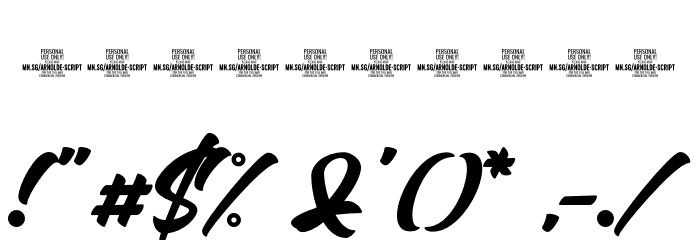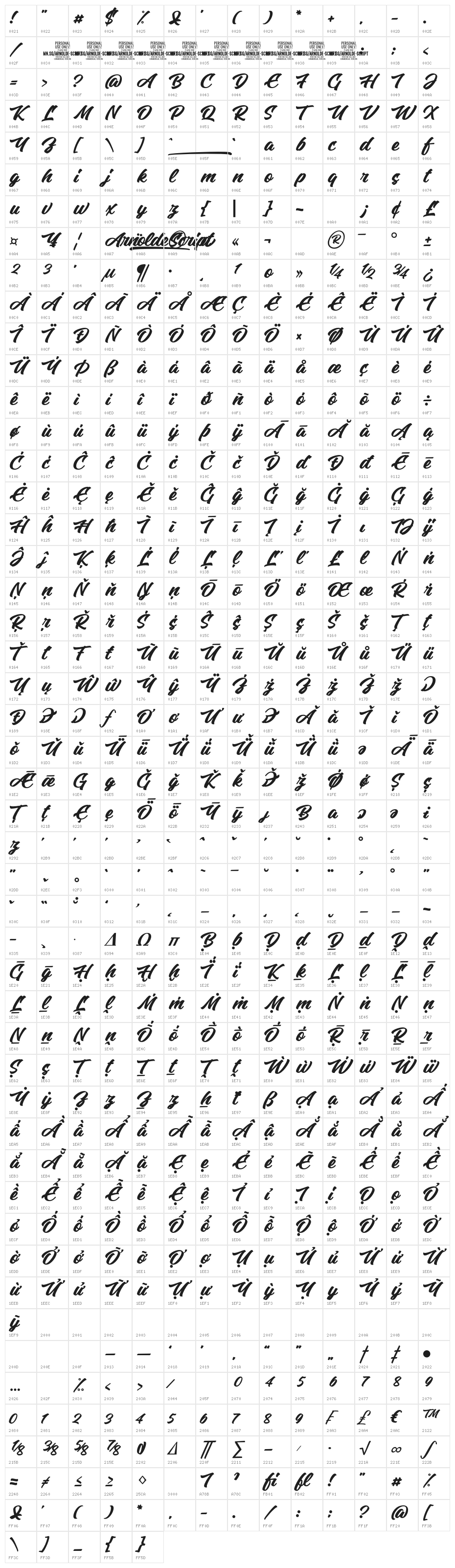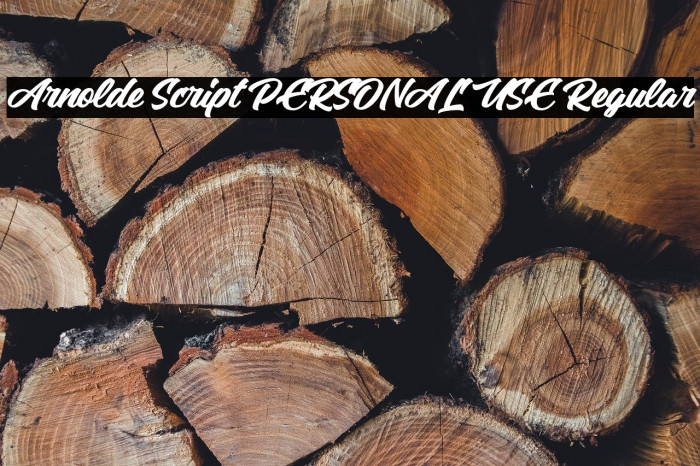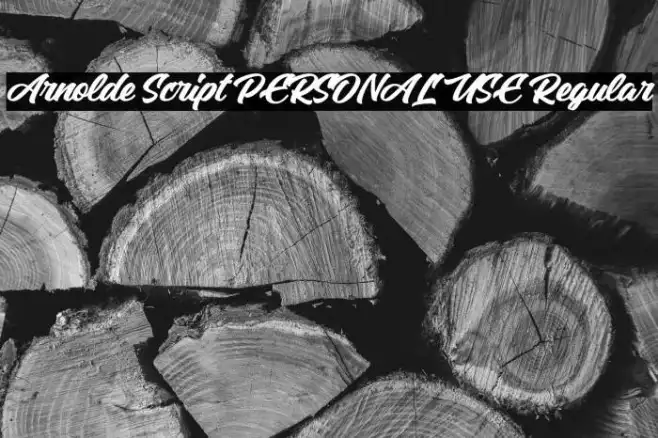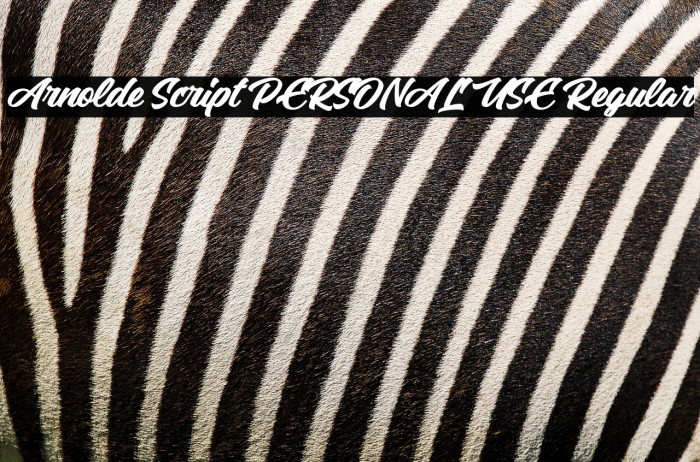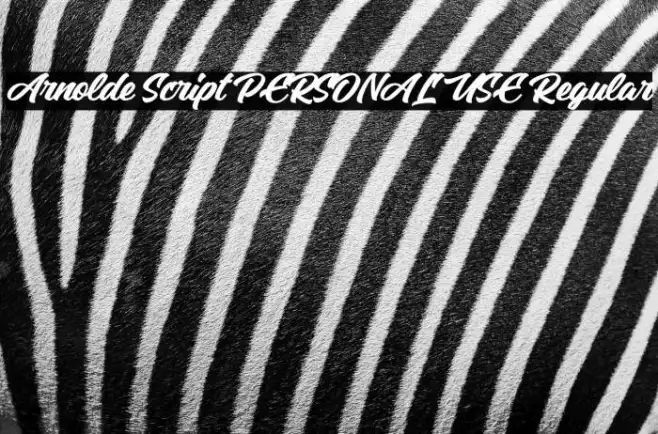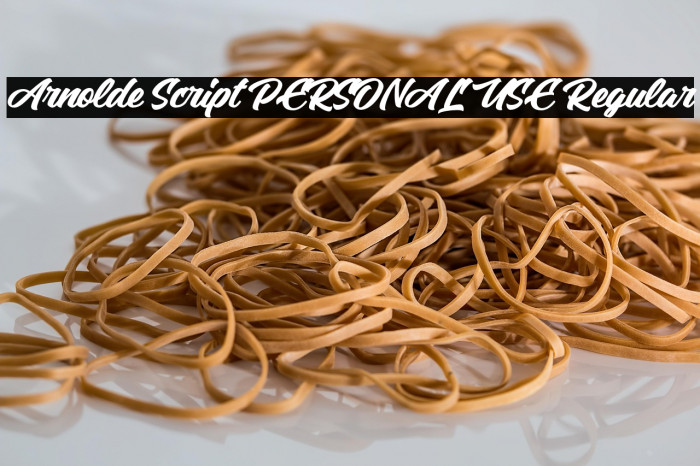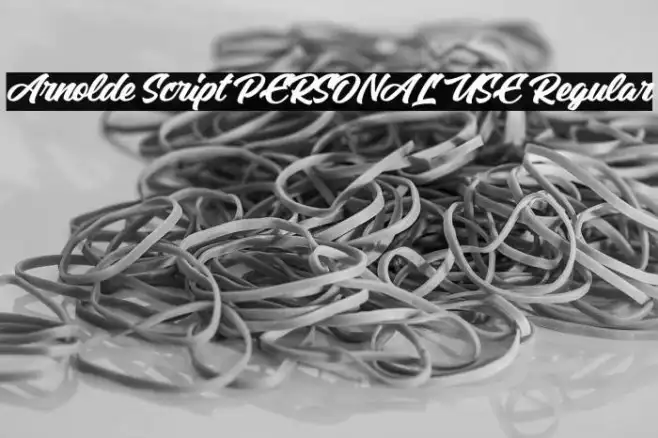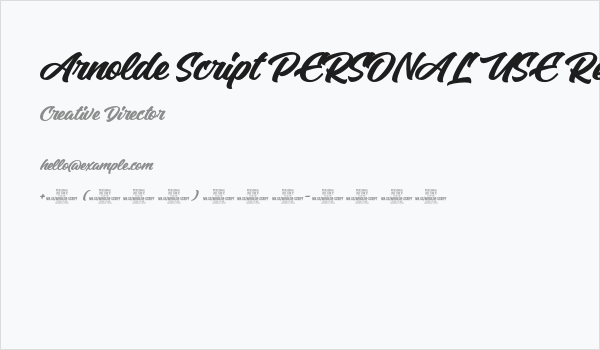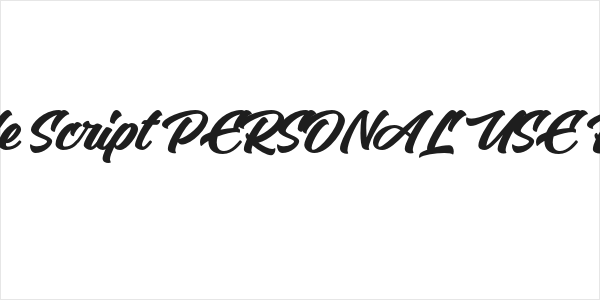
Arnolde Script PERSONAL USE Regular Font
Arnolde Script PERSONAL USE Regular Description
This font features a bold and flowing script style, characterized by its smooth, cursive strokes and elegant curves. The uppercase letters are particularly striking, with a dynamic and slightly slanted appearance that adds a sense of movement and grace. The lowercase letters maintain a consistent flow, enhancing readability while retaining a stylish flair. The numerals and special characters are crafted with the same attention to detail, ensuring a cohesive look across all text. This font exudes a sense of sophistication and creativity, making it suitable for a variety of design projects.
| Overall Style | Elegant, Creative |
| Proposed Projects | Ideal for wedding invitations, branding, logo design, and elegant stationery. |